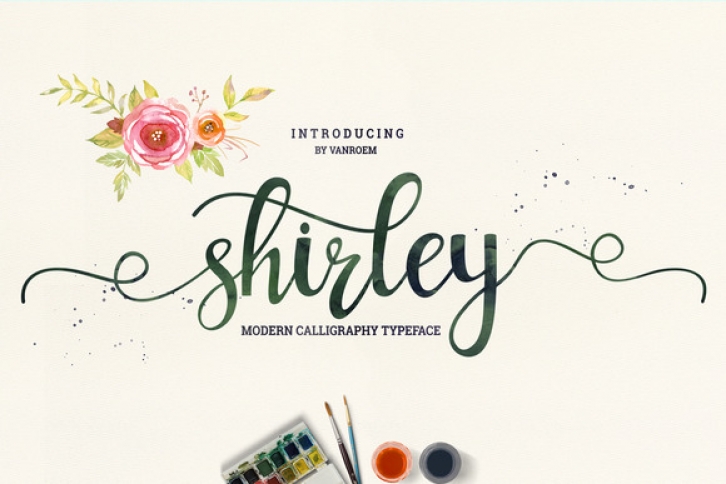
Shirley is a modern calligraphy typeface. It combines traditional hand writing with modern brush lettering. It can be used for various purposes such as headings, logos, invitations, t-shirt designs, greeting cards, posters, labels, book covers, brochures and much more!